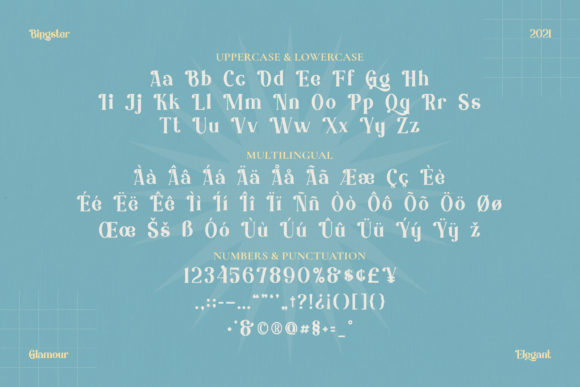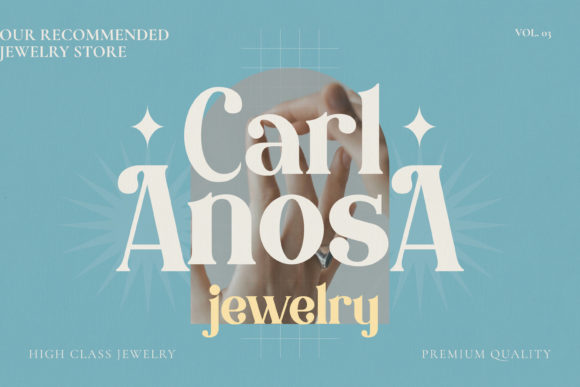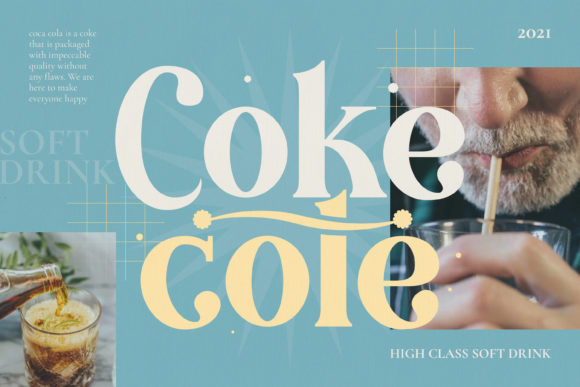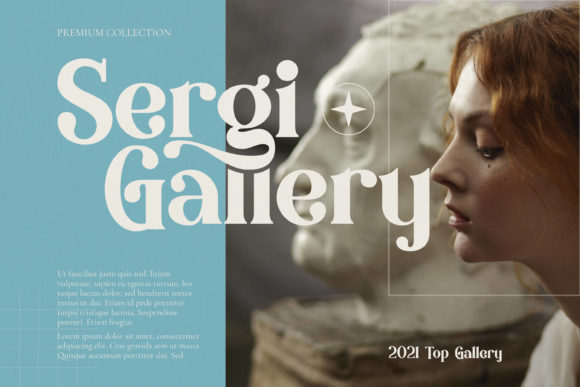
Bringster Font: The Modern Serif Font for All Your Design Needs
In the world of typography, a good font can make all the difference in the success of a design project. Whether you’re a professional designer, a crafter, or simply someone who loves to create digital content, having the right font at your disposal can elevate your work from ordinary to extraordinary. This is where Bringster Font comes in – a modern and trendy serif font that’s versatile, stylish, and perfect for a wide range of applications.
What is Bringster Font?
Bringster Font is a beautifully crafted serif font that’s designed to add a touch of elegance and sophistication to any design project. Its modern and trendy aesthetic makes it perfect for crafts, digital design, presentations, greeting cards, and more. With its clean lines, classic proportions, and subtle flair, Bringster Font is sure to become your go-to font for all your design needs.
Key Features of Bringster Font
So, what makes Bringster Font so special? Here are some of its key features:
- Modern and trendy design: Bringster Font boasts a fresh and contemporary look that’s perfect for designers and crafters who want to create modern and stylish designs.
- Serif font: The font’s serif design adds a touch of sophistication and elegance to any design project, making it perfect for formal and informal applications.
- Versatile: Bringster Font can be used for a wide range of design projects, from crafts and digital design to presentations and greeting cards.
- Easy to read: The font’s clean lines and classic proportions make it easy to read, even at small sizes.
Use Cases for Bringster Font
Bringster Font is an incredibly versatile font that can be used for a wide range of design projects. Here are some use cases to get you started:
- Crafts: Use Bringster Font to add a personal touch to your craft projects, such as scrapbooking, card making, and DIY gifts.
- Digital design: Bringster Font is perfect for digital designers who want to create modern and stylish designs for websites, social media, and more.
- Presentations: Add a touch of elegance and sophistication to your presentations with Bringster Font.
- Greeting cards: Use Bringster Font to create beautiful and personalized greeting cards for special occasions.
Why Choose Bringster Font?
With so many fonts available, why choose Bringster Font? Here are some reasons why:
- Unique and stylish: Bringster Font has a unique and stylish design that’s sure to stand out from the crowd.
- High-quality: The font is designed with high-quality craftsmanship, ensuring that it looks great in any design project.
- Versatile: The font can be used for a wide range of design projects, making it a great addition to any designer’s toolkit.
In conclusion, Bringster Font is a modern and trendy serif font that’s perfect for designers, crafters, and anyone who loves to create digital content. With its versatile design, high-quality craftsmanship, and ease of use, Bringster Font is sure to become your go-to font for all your design needs. Whether you’re working on a craft project, digital design, presentation, or greeting card, Bringster Font has the potential to elevate your work and make it truly special.